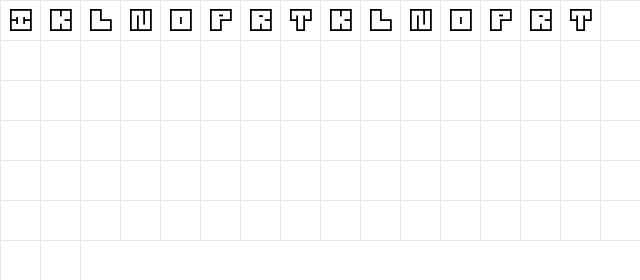
Square Limit MCE Regular
| Foundry | High-Logic |
| Designer | High-Logic - Erwin Denissen |
Design Context for Square Limit MCE Typeface
Square Limit MCE offers clean, dependable letterforms without strong stylistic allegiance, making it a practical choice for designers who need flexibility.